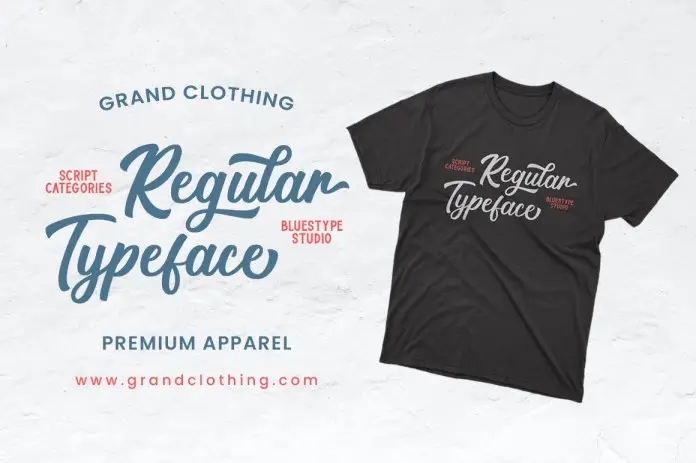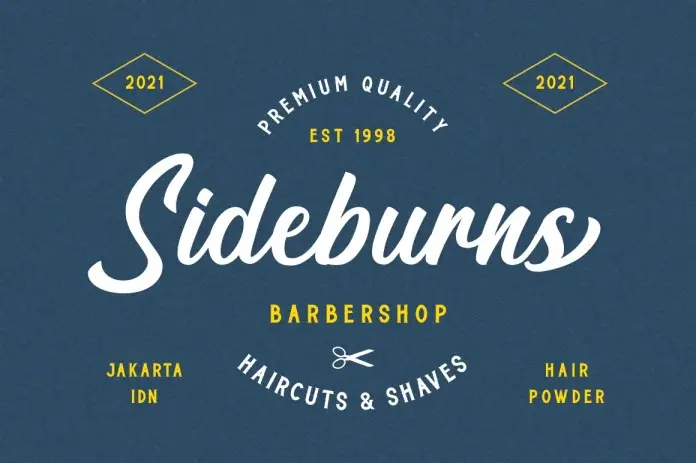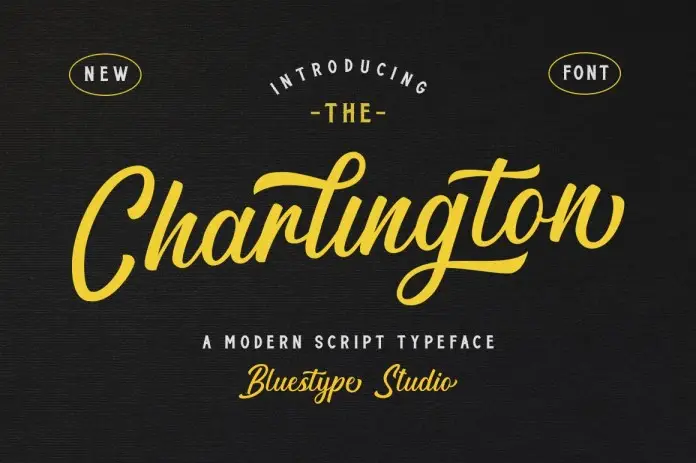
Charlington Calligraphy Font
The Charlington Calligraphy Font is a beautifully crafted typeface that brings elegance and sophistication to any project. With its flowing lines and artistic flair, this font is perfect for invitations, greeting cards, branding, and more.
• Stylish calligraphy design
• Weight: Regular, Bold
Ideal for both print and digital applications, this font can be used for wedding invitations, branding materials, and social media graphics to create a memorable impression.